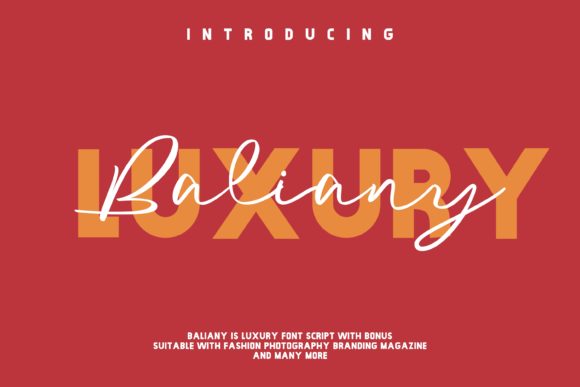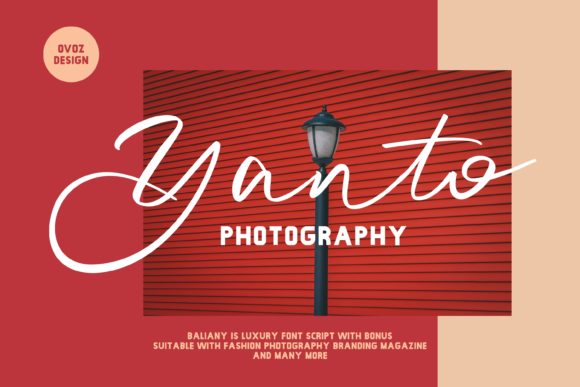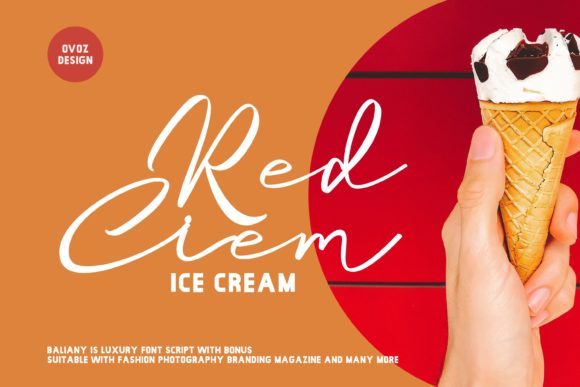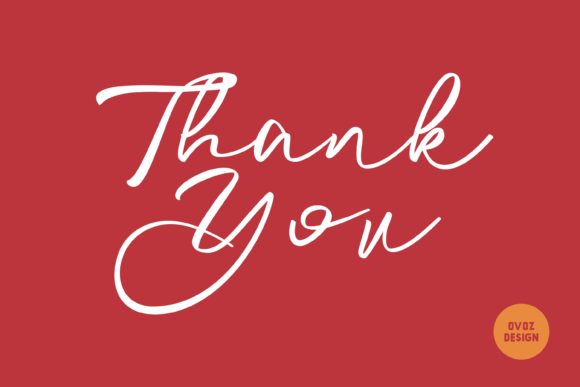
Baliany Script Font
About Baliany Script Font
Baliany is a luxurious and elevated handwritten font with a cool vibe. It will add a contemporary feel to any design project.